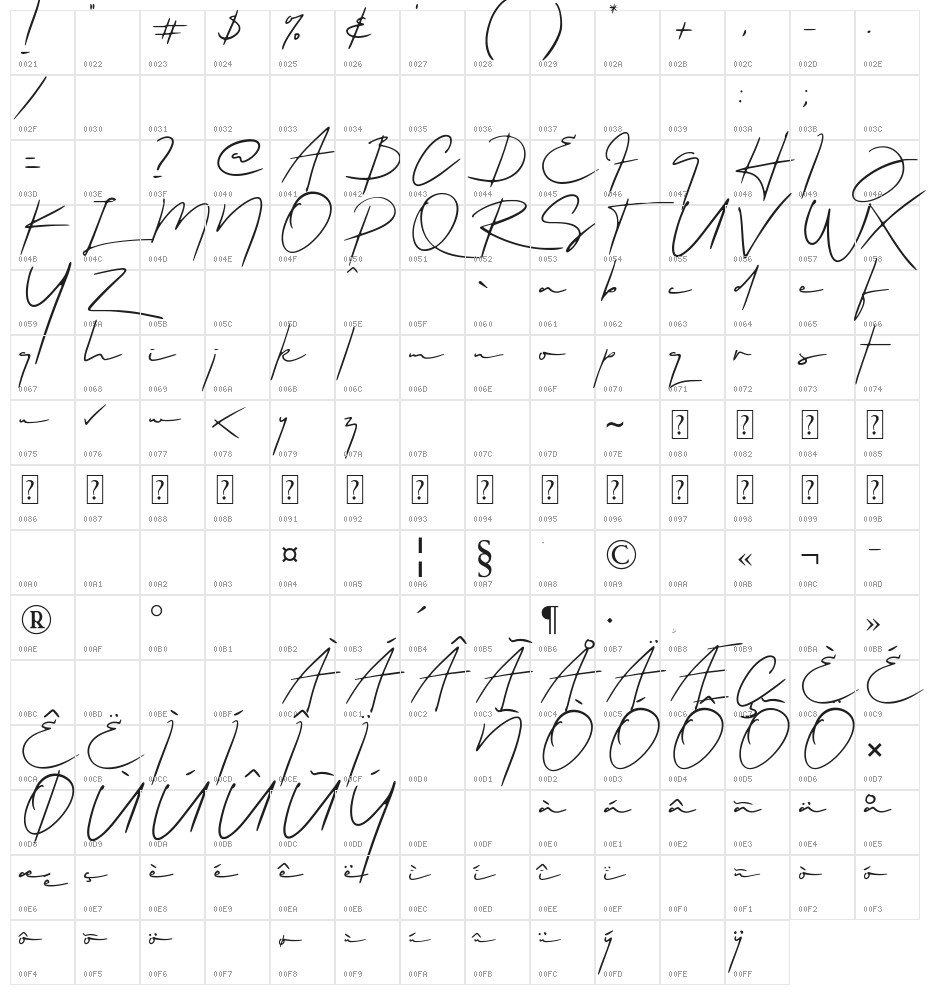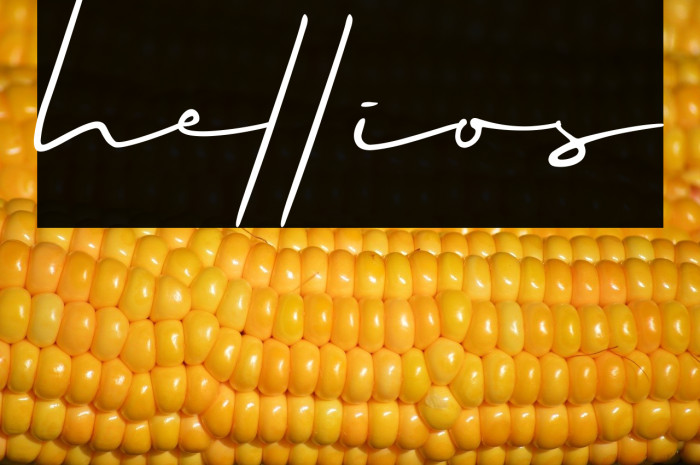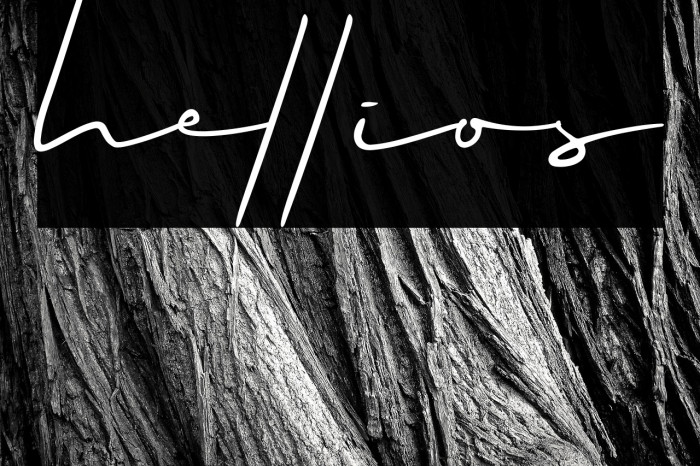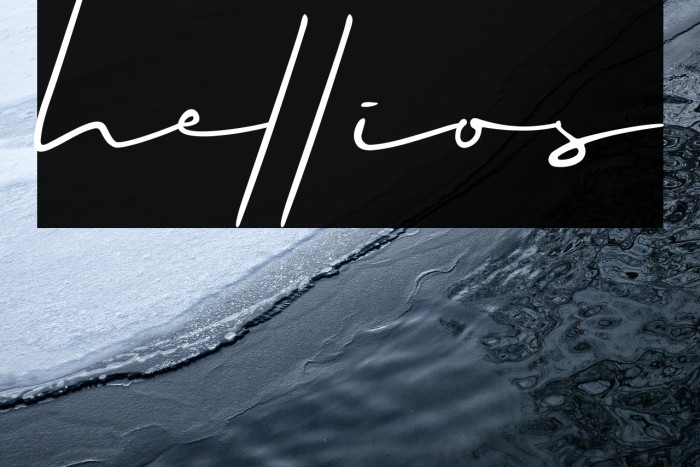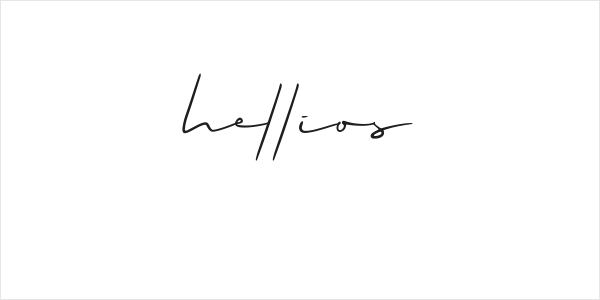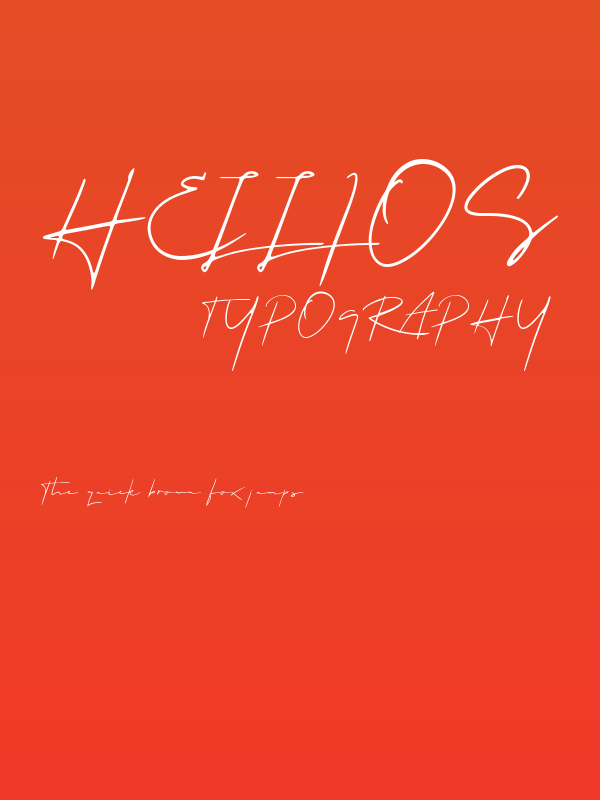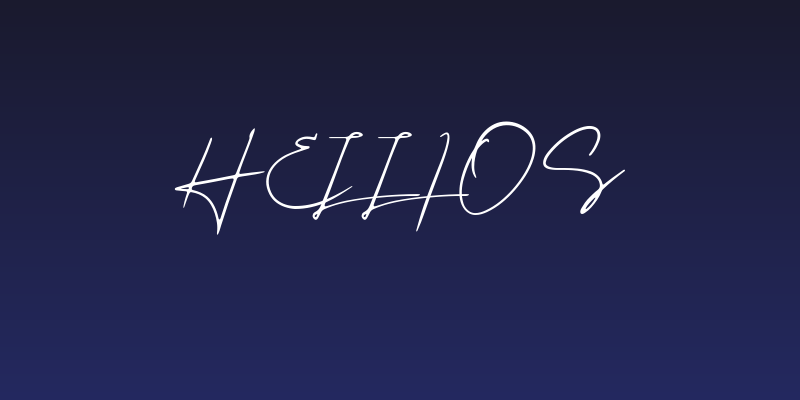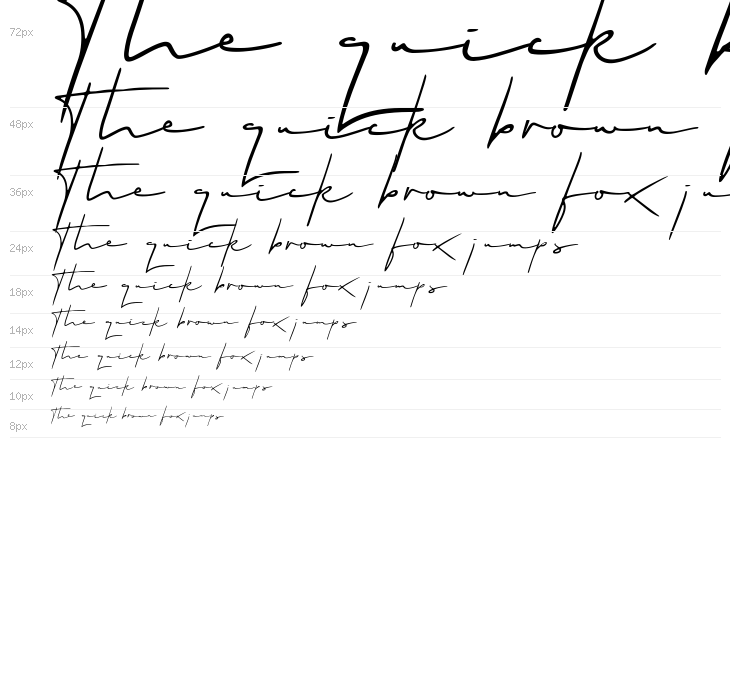
hellios Font
hellios Description
A handwritten script font with tall, narrow letterforms and a loose, flowing style. The strokes are thin and slightly irregular, mimicking natural penmanship with high ascenders and descenders.
Overall StyleModern, Artistic, Casual
Use CaseLogos, Headlines, Short quotes, Invitations
Proposed ProjectsPersonal branding, invitations, quotes, artistic posters, social media graphics.